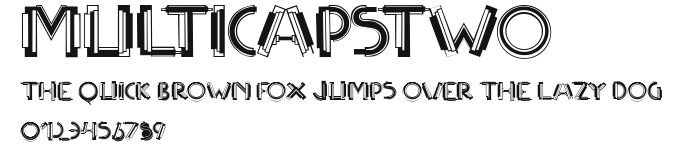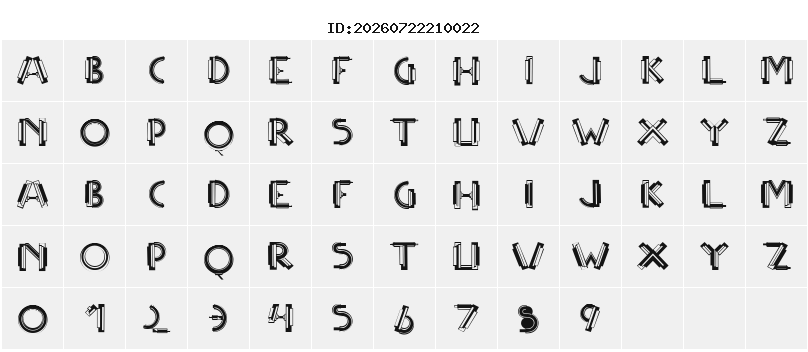
• Font Name: MultiCapsTwo
About MultiCapsTwo.ttf
MultiCapsTwo.ttf is a modern, elegant sans-serif font designed for ultimate readability and visual harmony. Perfect for branding, headlines, web design, and print materials.